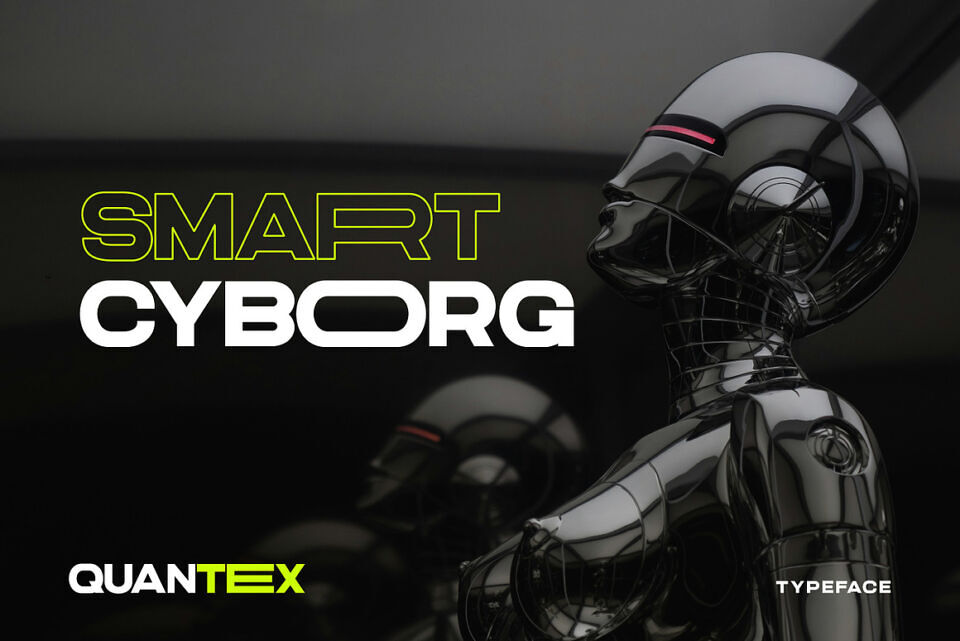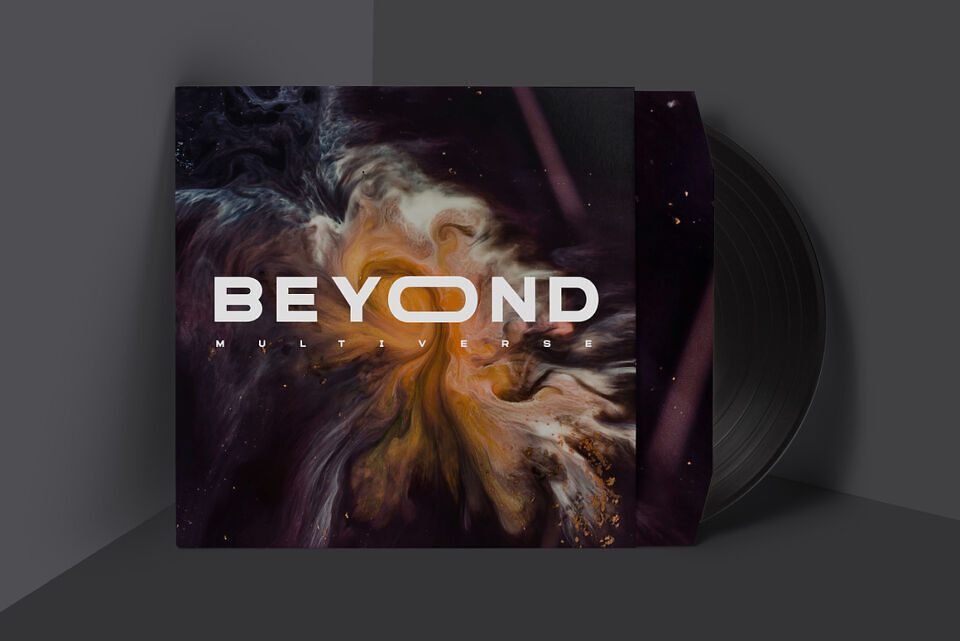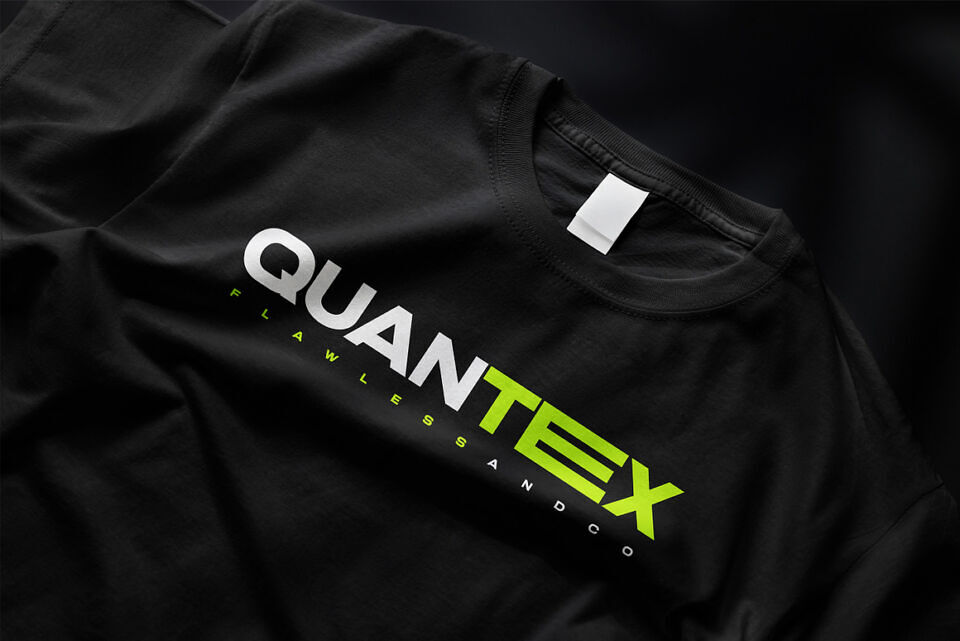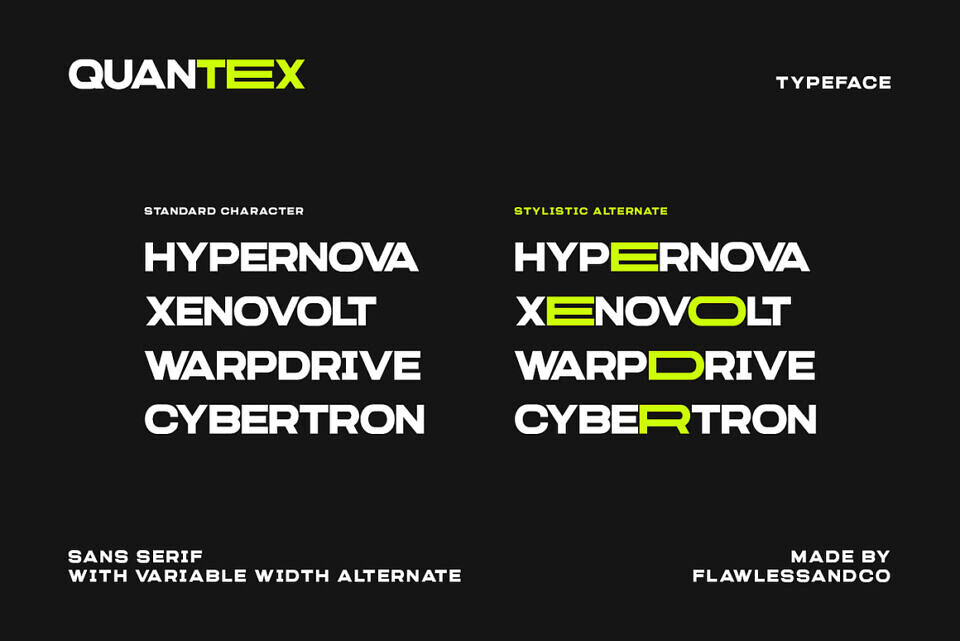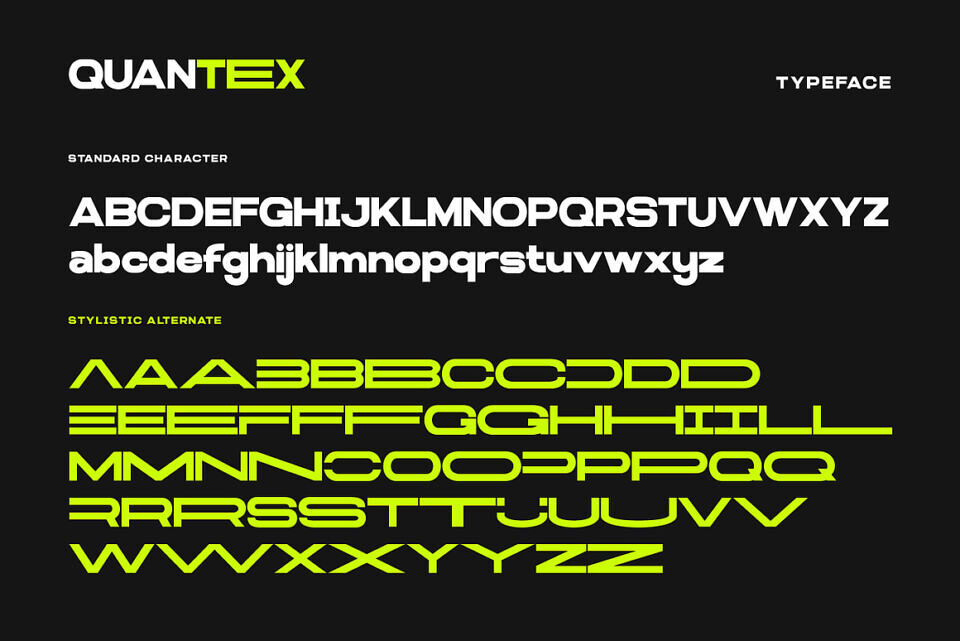
Quantex Font
Quantex is a sleek and modern sans serif futuristic font designed for innovation-driven designs. With its clean lines and sharp angles, this typeface exudes a high-tech and forward-thinking aesthetic. Suitable for sci-fi posters, technology branding, gaming interfaces, futuristic advertisements, and digital projects, Quantex brings a bold and cutting-edge look to any creative work.
There’s some connected letters and some alternates that suitable for any graphic designs such as branding materials, print, business cards, logo, poster, t-shirt, photography, quotes .etc
This font support for some multilingual. Also contains uppercase A-Z and lowercase a-z, alternate character, numbers 0-9, alternates & ligatures, and some punctuation.